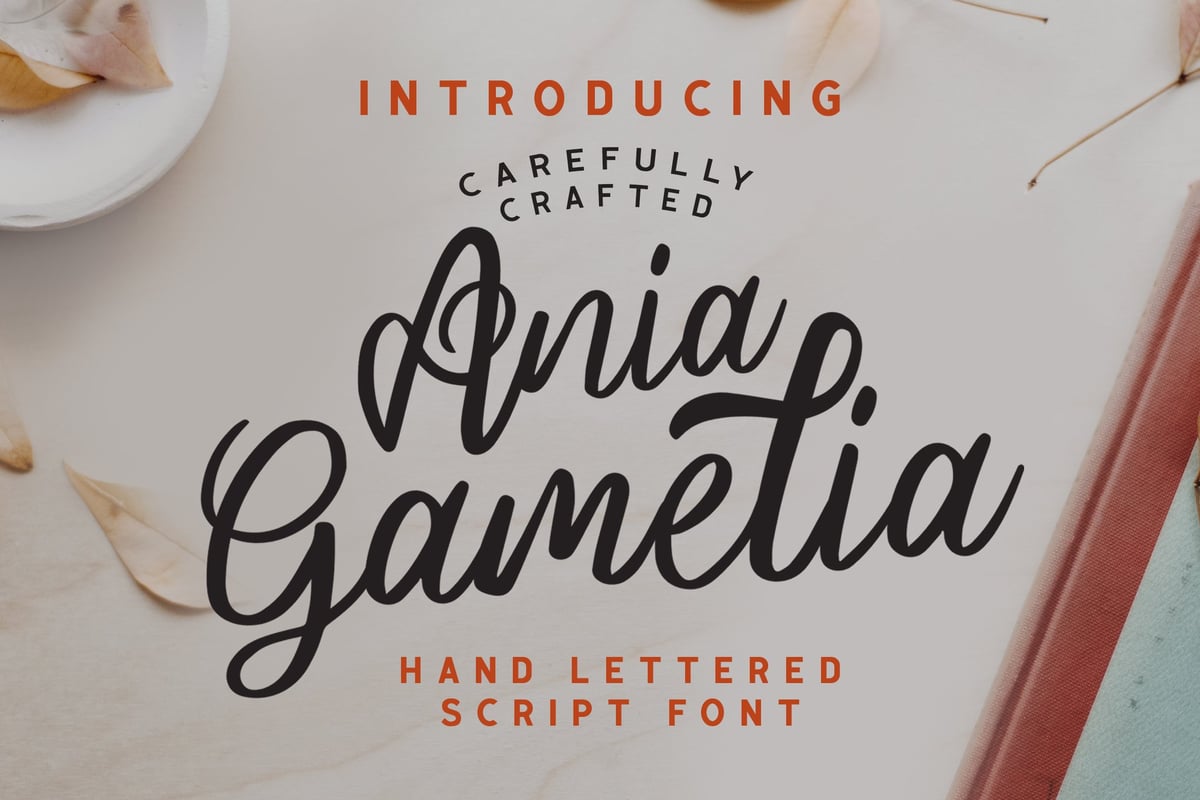
Free Ania Gamelia - Handlettering Script Font
A beautifully hand-lettered script font made for elegant invitations, branding, and standout creative designs.
Ania Gamelia is a flowing, carefully crafted handlettering script typeface with natural charm and expressive character. Its graceful curves and bold strokes make it a perfect fit for a wide range of design projects.
Ideal for use on:
- Wedding and event invitations
- Greeting cards
- Branding materials and business cards
- Quotes and posters
- And much more